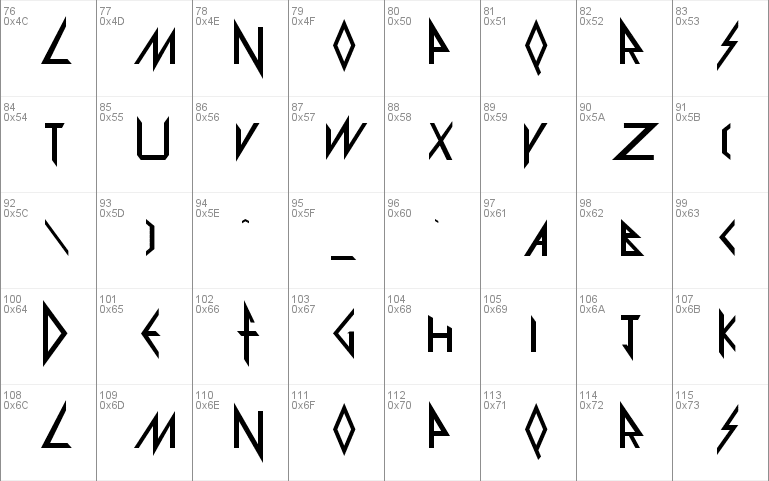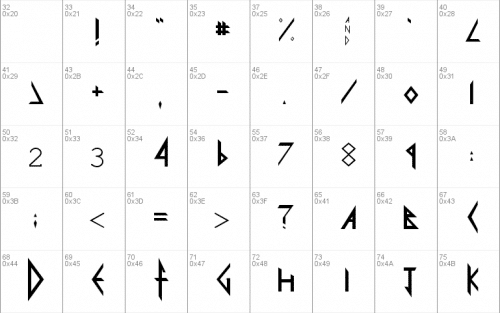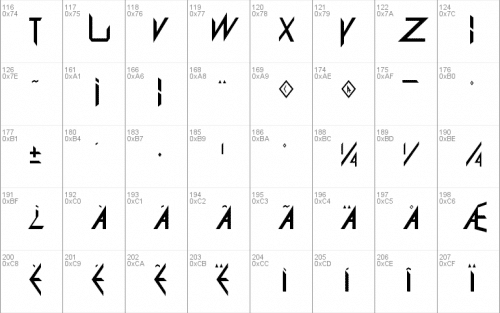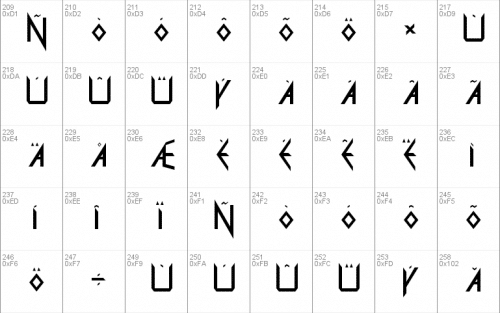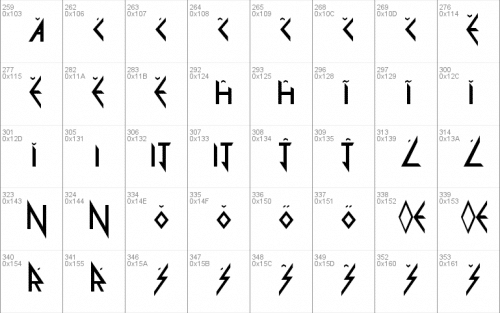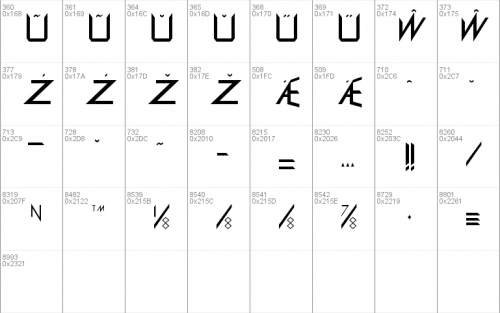
Def Leppard font here refers to the font used in the logo of Def Leppard, which is an English rock band formed in 1977. Its current members include Rick Savage, Joe Elliott, Rick Allen, Phil Collen and Vivian Campbell.
The font used for the logotype of the Def Leppard, as seen on the cover artwork of their 1999 album Euphoria, is very similar to a font called Pyrite designed by Ray Larabie. The font is available in only in capital letters but it has most diacritical letters available.
- Designer: Ray Larabie